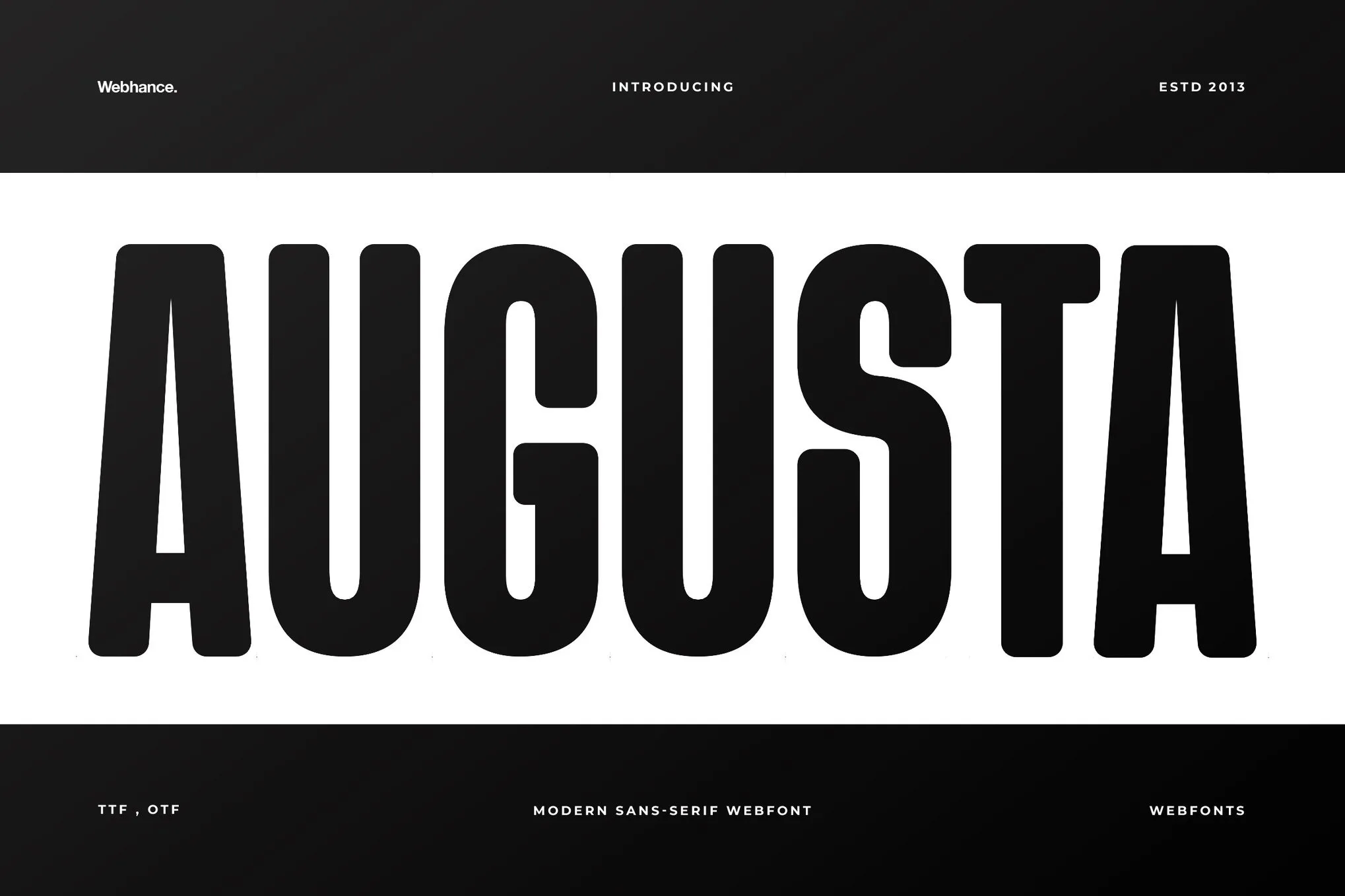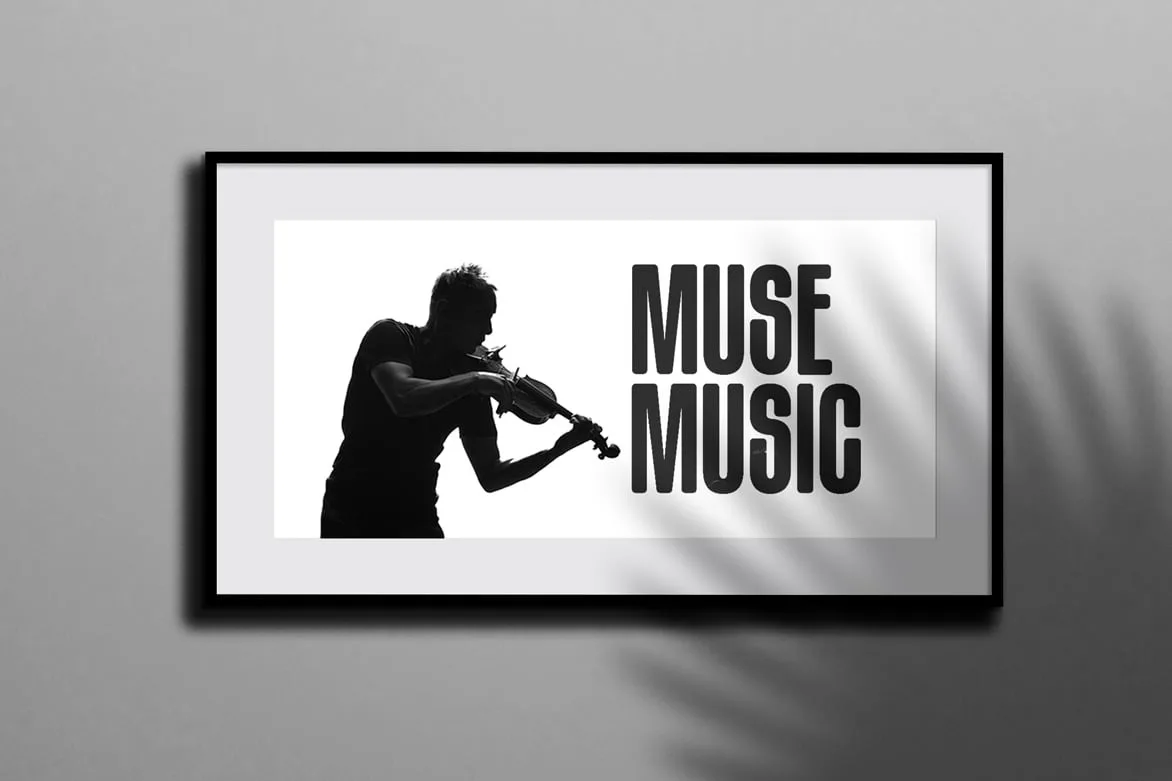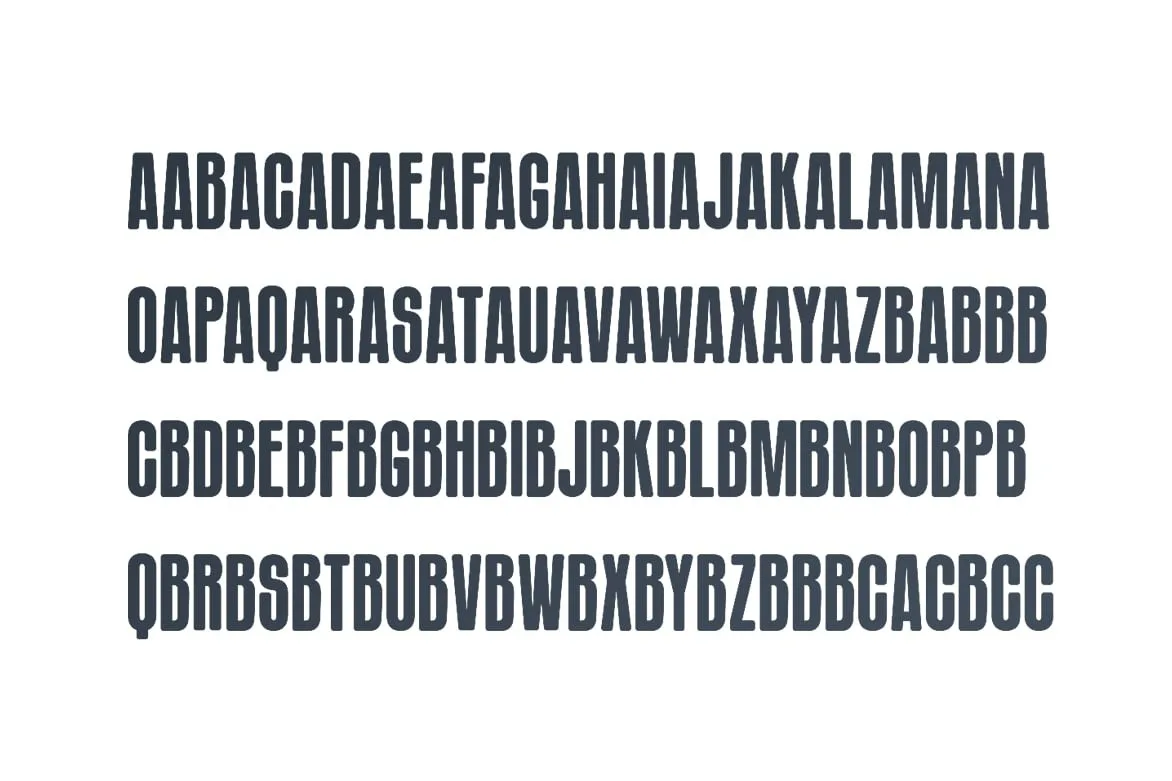
Augusta
Introducing August Sans, a dynamic and impactful typeface designed by Webhance Studio to truly command attention. With its heavy-looking appearance and solid stems, August Sans exudes strength and confidence, making your projects stand out effortlessly. This font is perfect for delivering the boldness and impact your designs demand, whether you are working on modern display and web designs, creating memorable branding and logos, or crafting attention-grabbing posters and social media graphics. Featuring a comprehensive set of uppercase and lowercase letters, numbers, and symbols, August Sans offers complete versatility. The package includes OTF, TTF, and full Web Fonts, plus you'll receive free future updates and feature additions to keep your creative vision sharp.